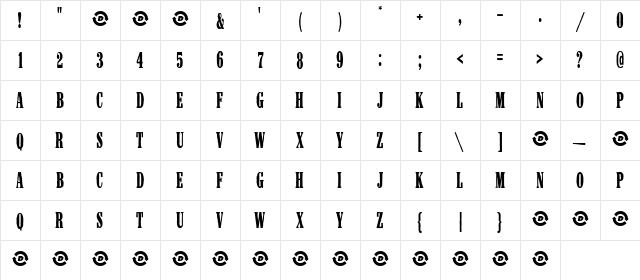
HotBurrito3 Regular
Design Context for HotBurrito3 Typeface
HotBurrito3 is a composed and adaptable typeface that performs quietly and consistently across a wide range of design contexts.
Pro Tip: Use HotBurrito3 in both headline and body roles to test its range before committing to a single application.